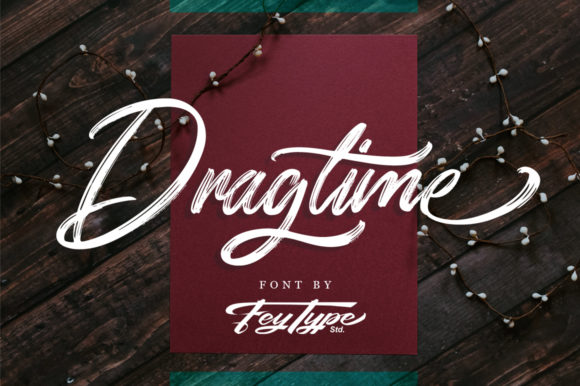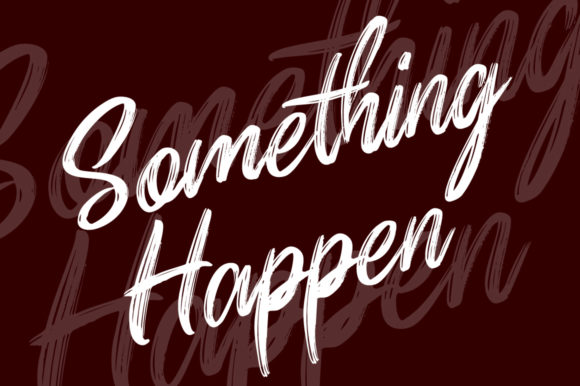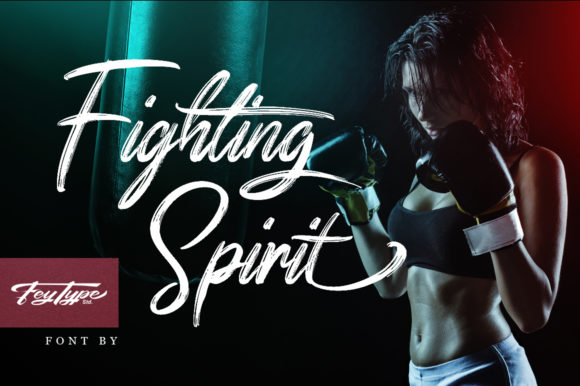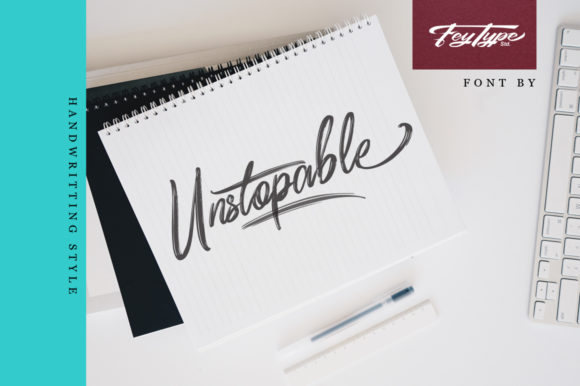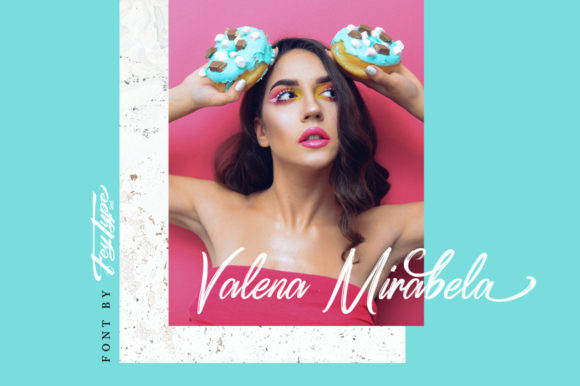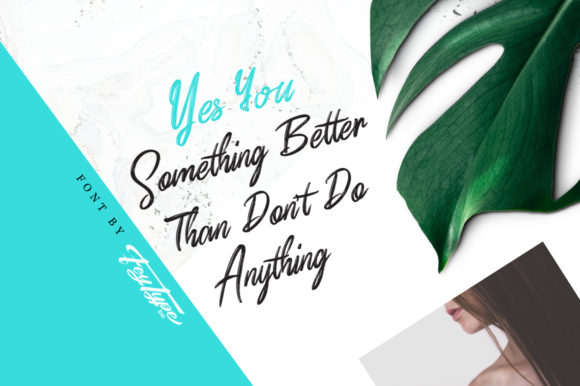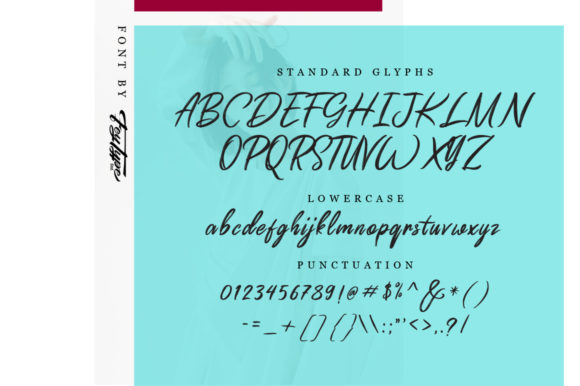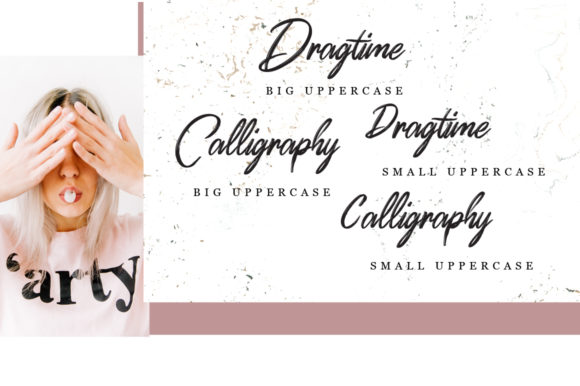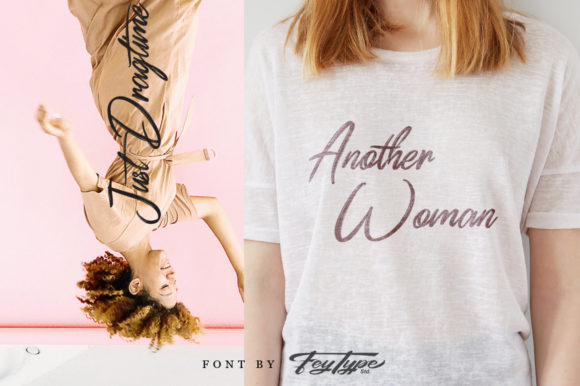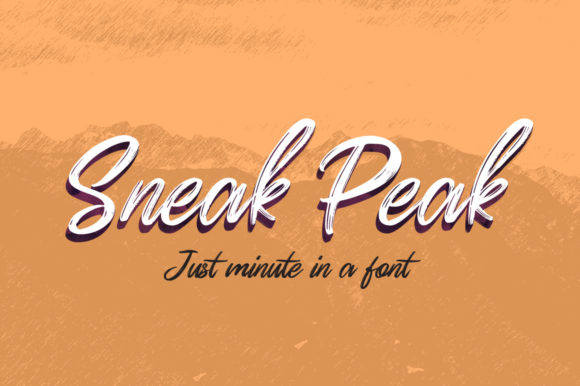
Dragtime Font
About Dragtime Font
The Dragtime is an amazing handwritten script font. It has a beautiful signature style which can be used for wedding stationary, logos, badges, stickers, t-shirts, and much more!